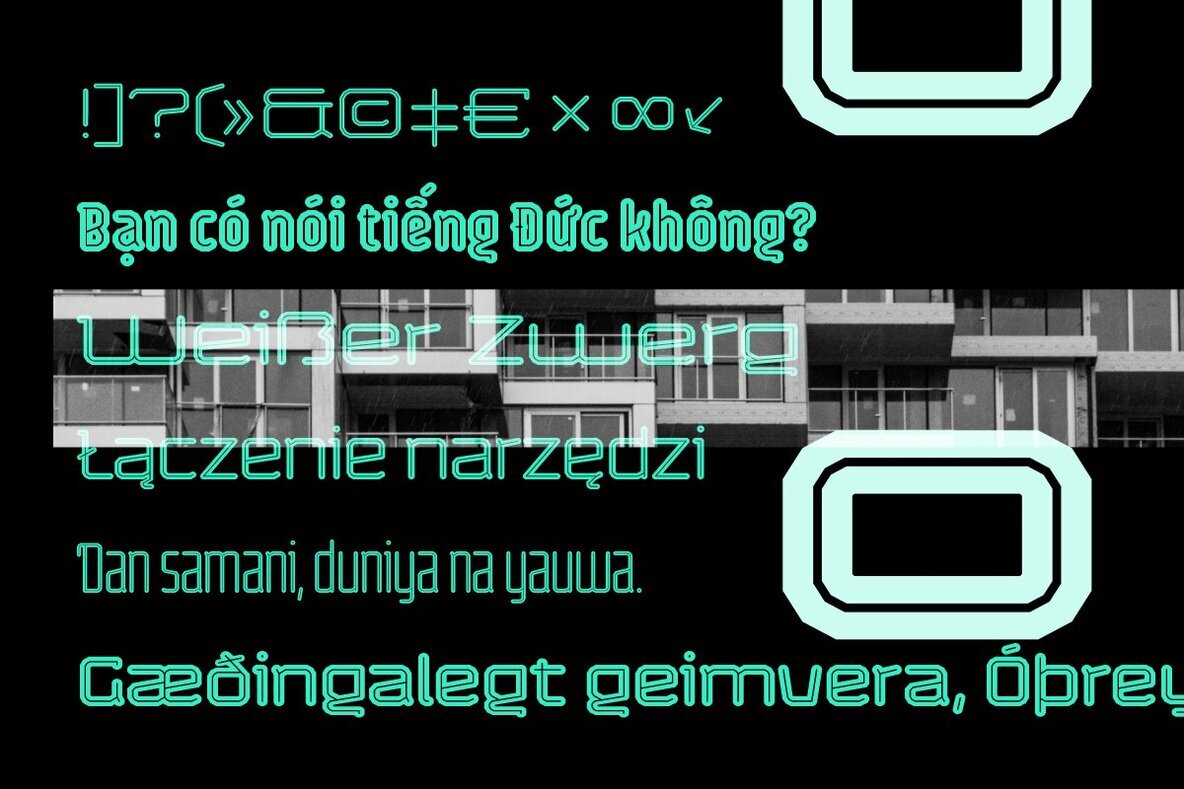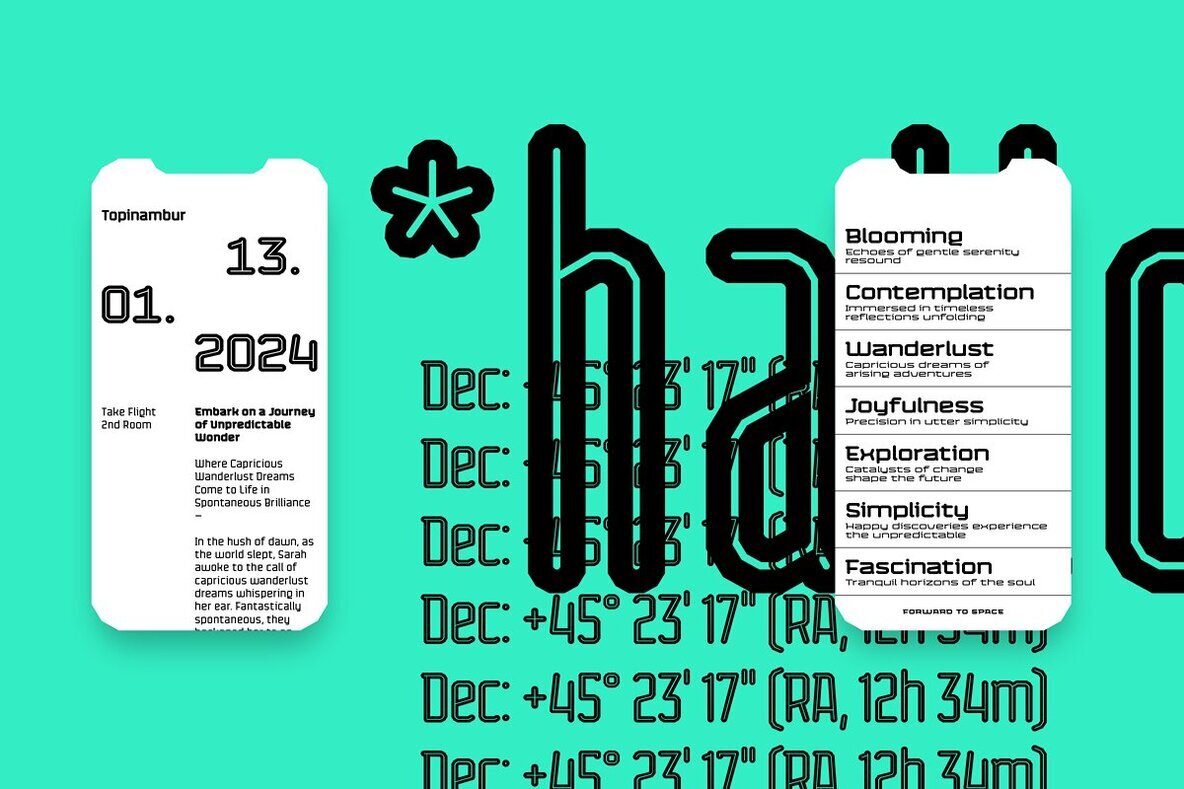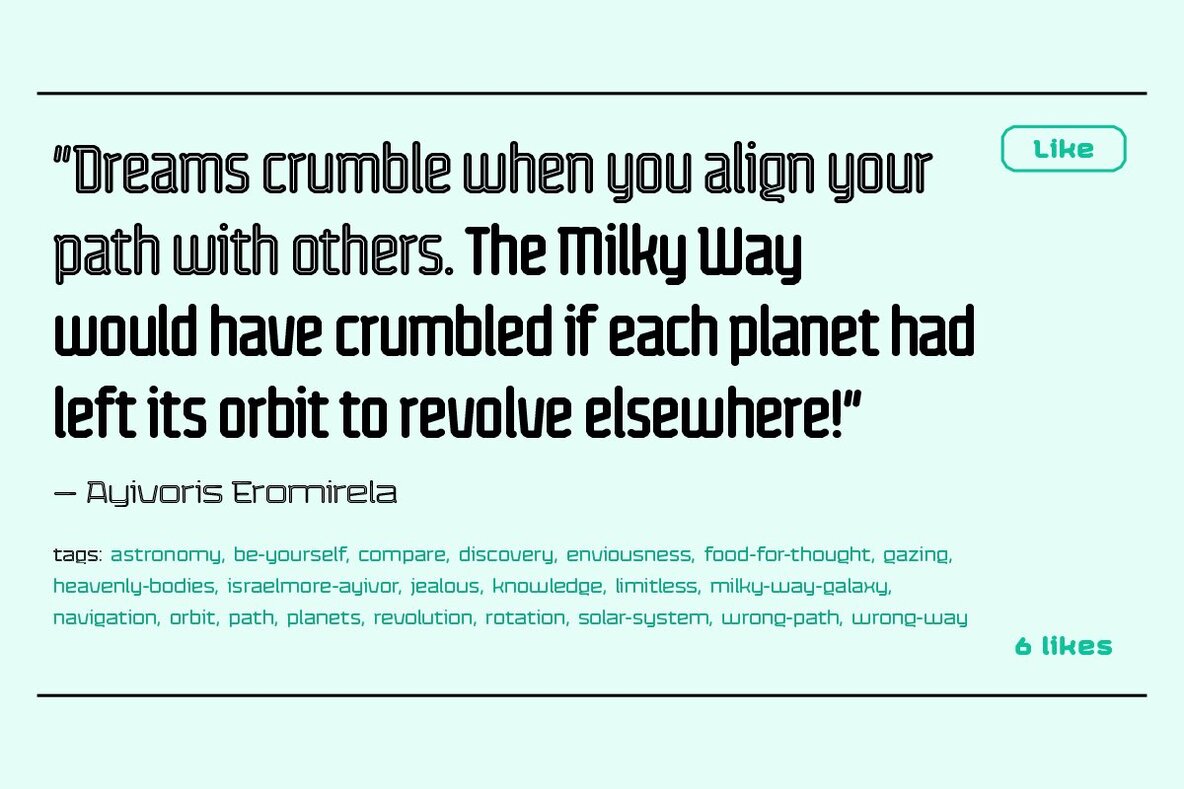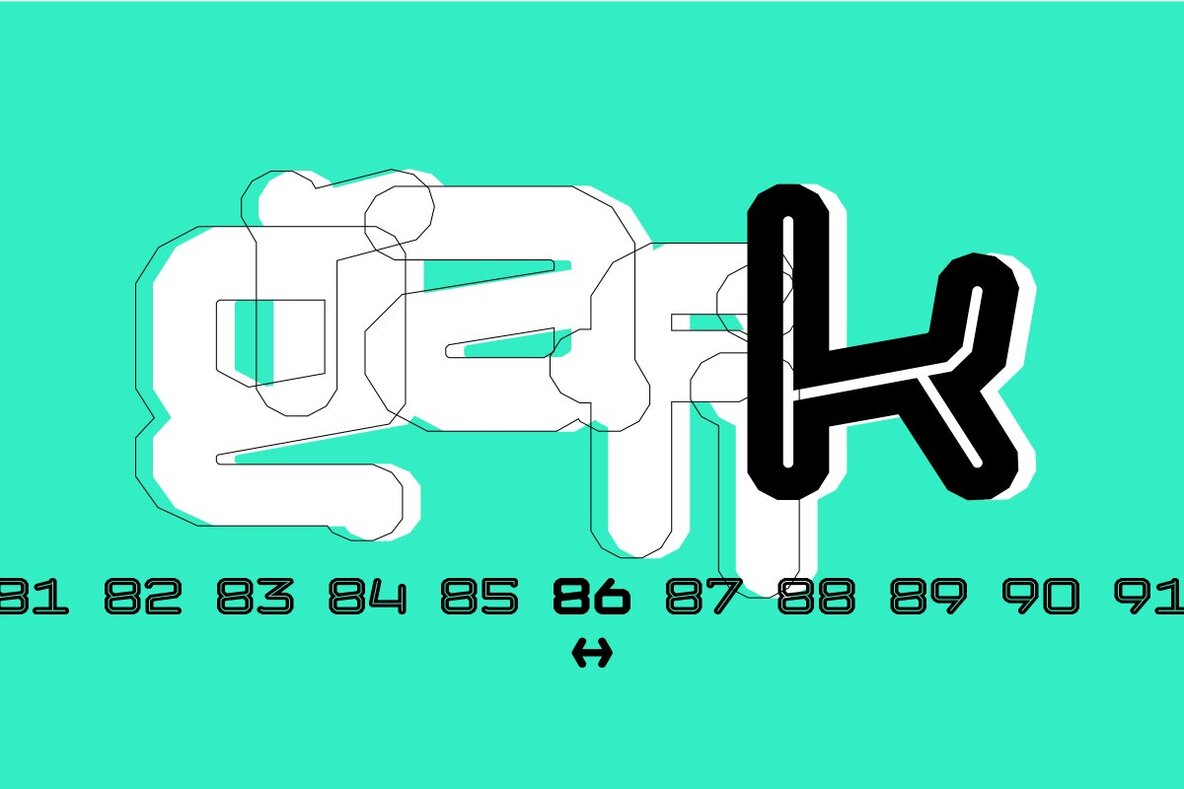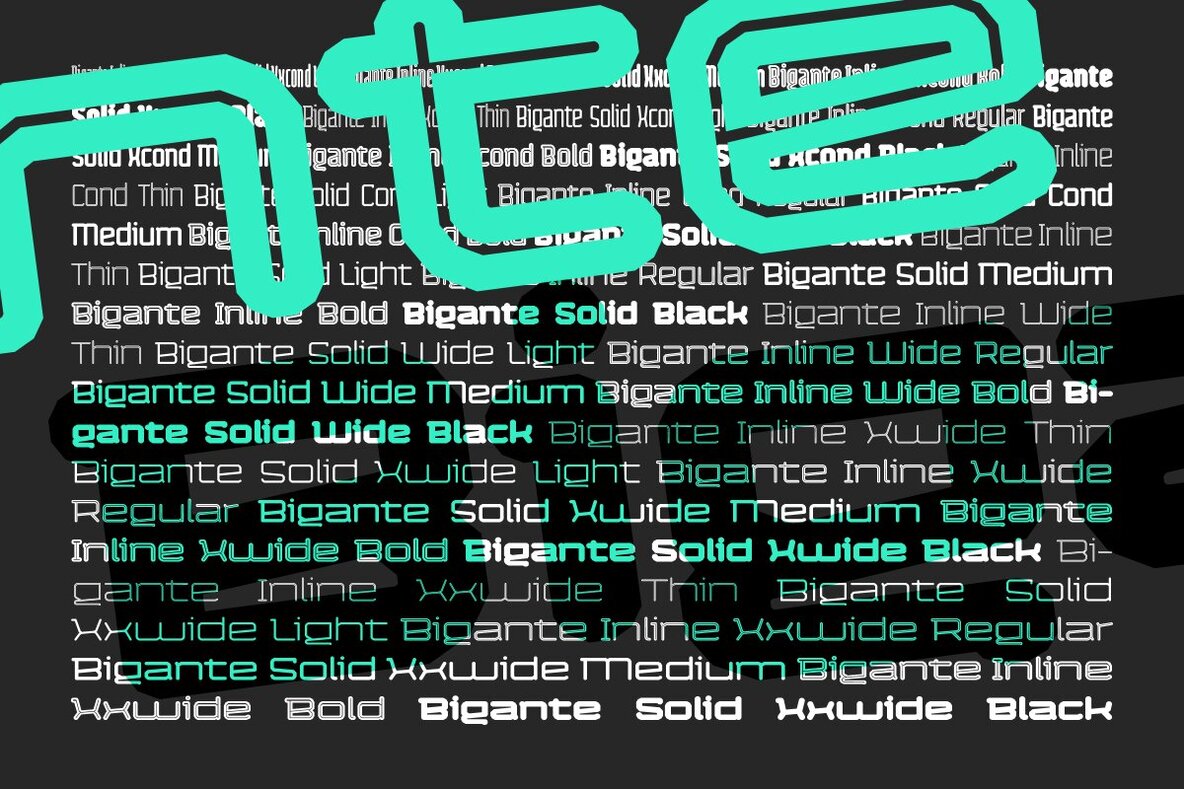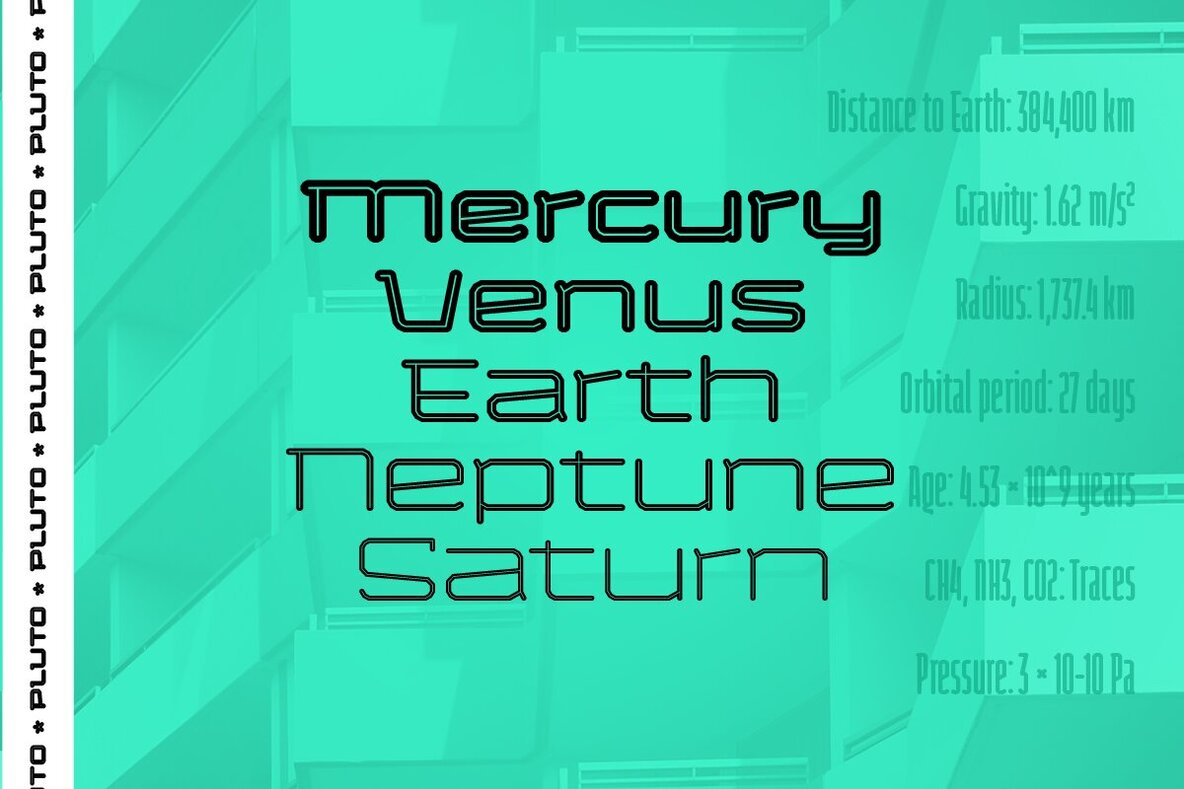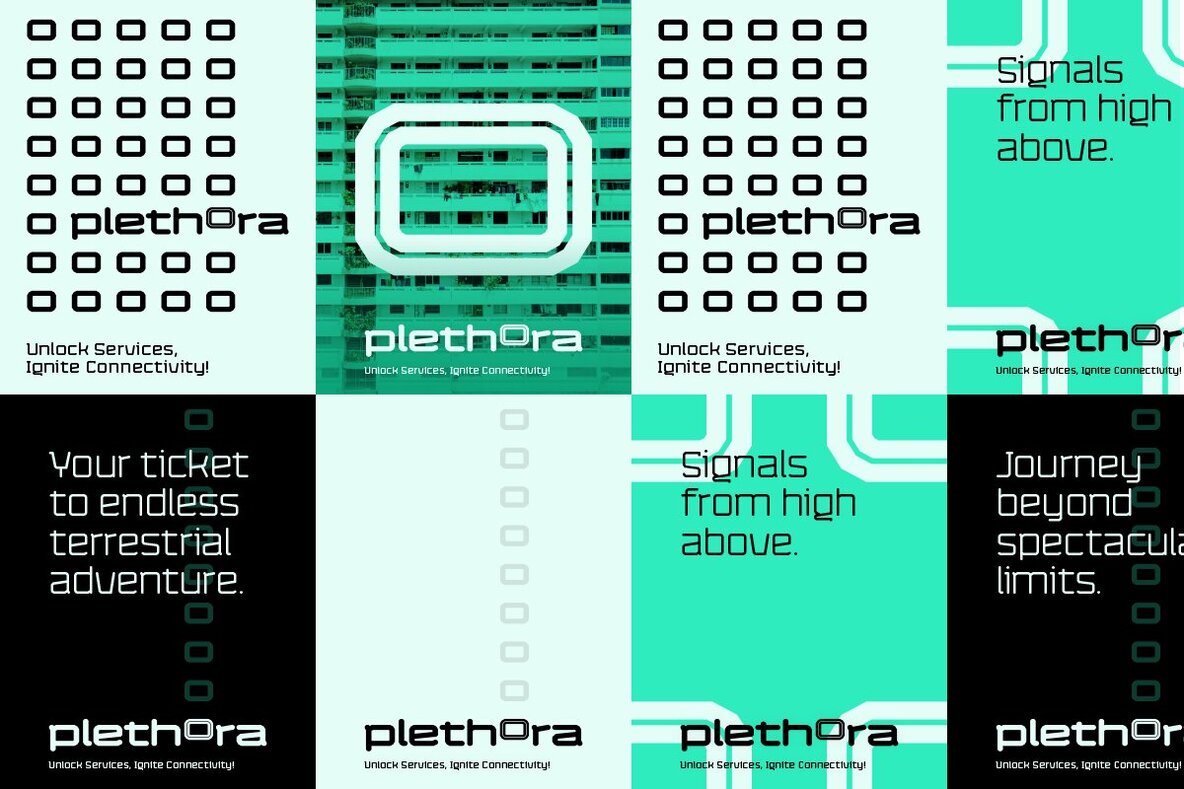
Bigante Font
Bigante is a big, giant superfamily with two variants: Solid and Inline, offering six weights and seven widths. Its constructed design interprets rounded corners as three 30° angles, resulting in edged terminals and twelve-sided dots. While it sounds functional, this rounded-like semi-serif enhances the appearance, creating a friendly aesthetic. The lowercase alphabet features a high x-height. For versatile use in display and advertising, the multitude of fonts enables flexibility. Captivating with a linear structure, it associates with modern architecture, tactical sports, space travel, and futuristic technology. The character set of 780 glyphs supports 410 Latin languages.